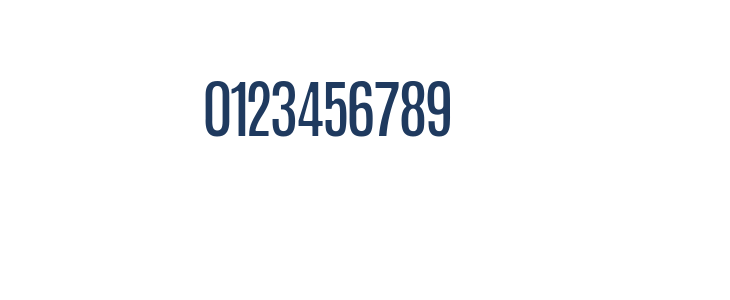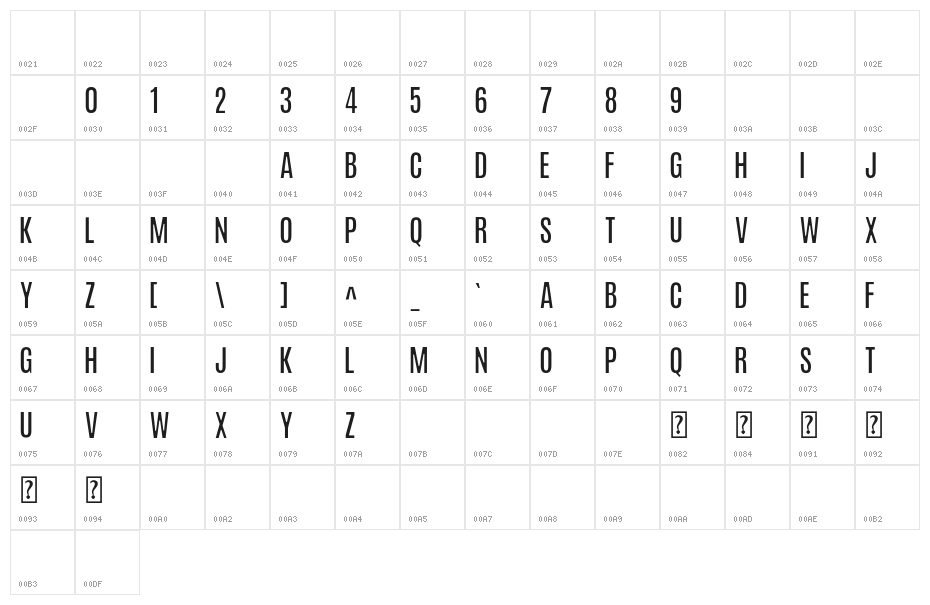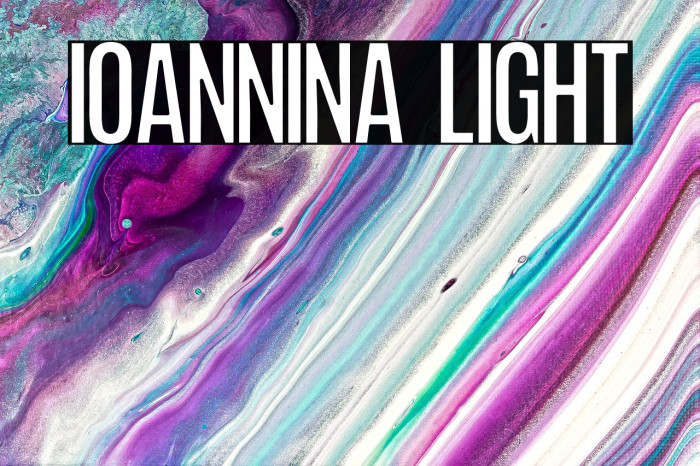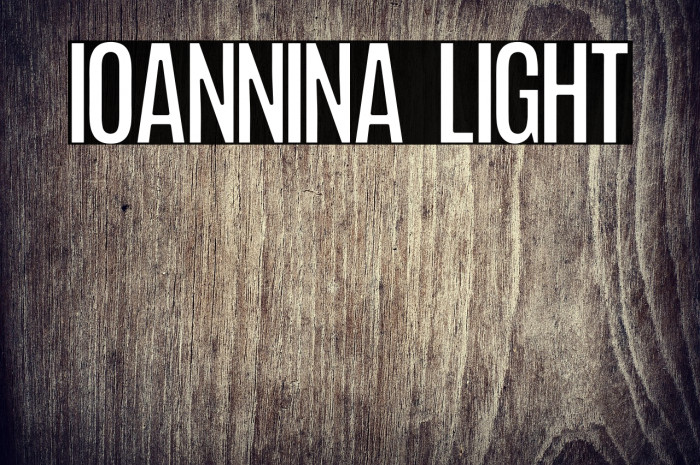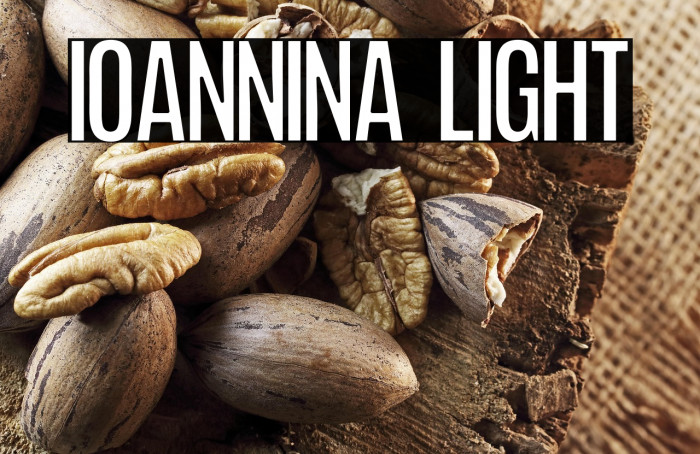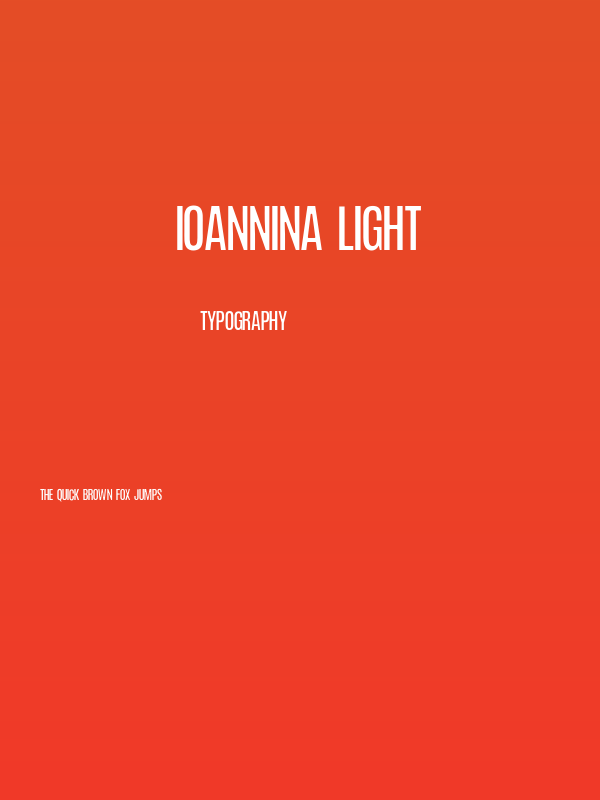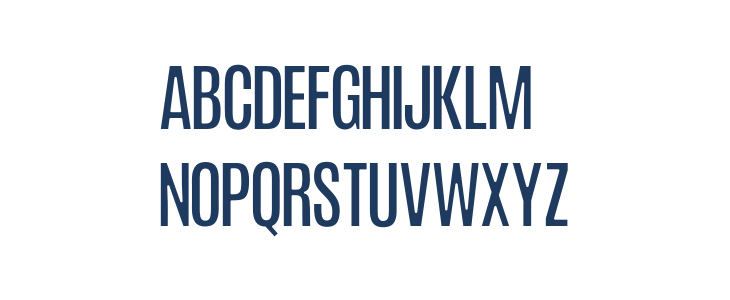
Ioannina Light Font
Ioannina Light Description
This font features a clean, modern sans-serif design with a uniform stroke width that gives it a sleek and contemporary appearance. The characters are tall and narrow, contributing to a condensed look that maximizes space efficiency. The uppercase letters are bold and assertive, while the numerals maintain a consistent height with the uppercase alphabet, ensuring a harmonious visual flow. The font's simplicity and clarity make it highly legible, even at smaller sizes, making it versatile for various design applications.
| Use Case | Headlines, Logos, Digital interfaces |
| Proposed Projects | Ideal for branding, advertising, headlines, and digital interfaces where clarity and modernity are essential. |